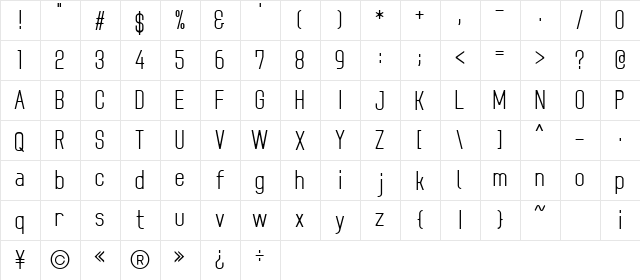
078MKSDMediumCondensed Regular
Design Context for 078MKSDMediumCondensed Typeface
078MKSDMediumCondensed is a composed and adaptable typeface that performs quietly and consistently across a wide range of design contexts. The condensed width makes it efficient for tight spaces without sacrificing legibility.